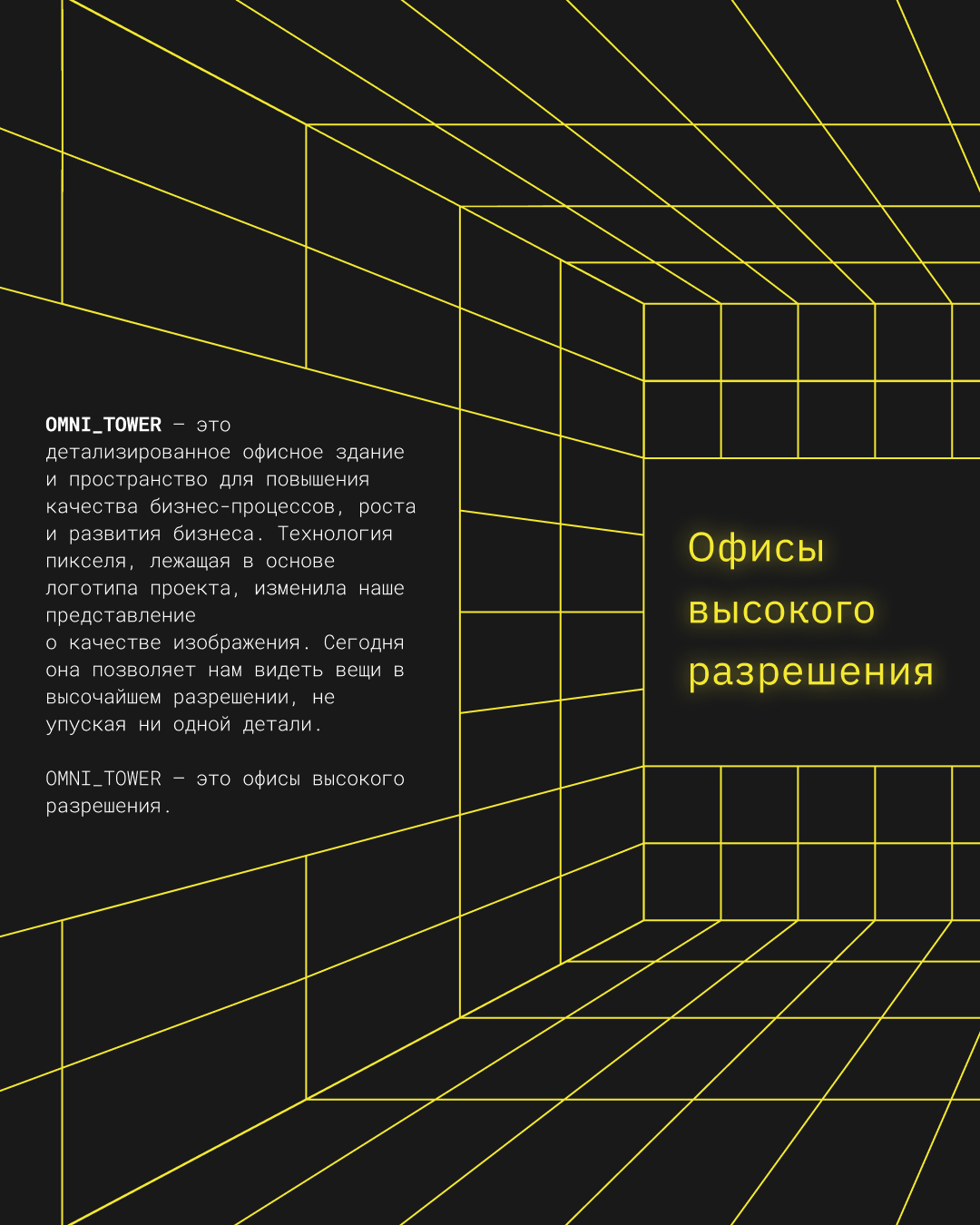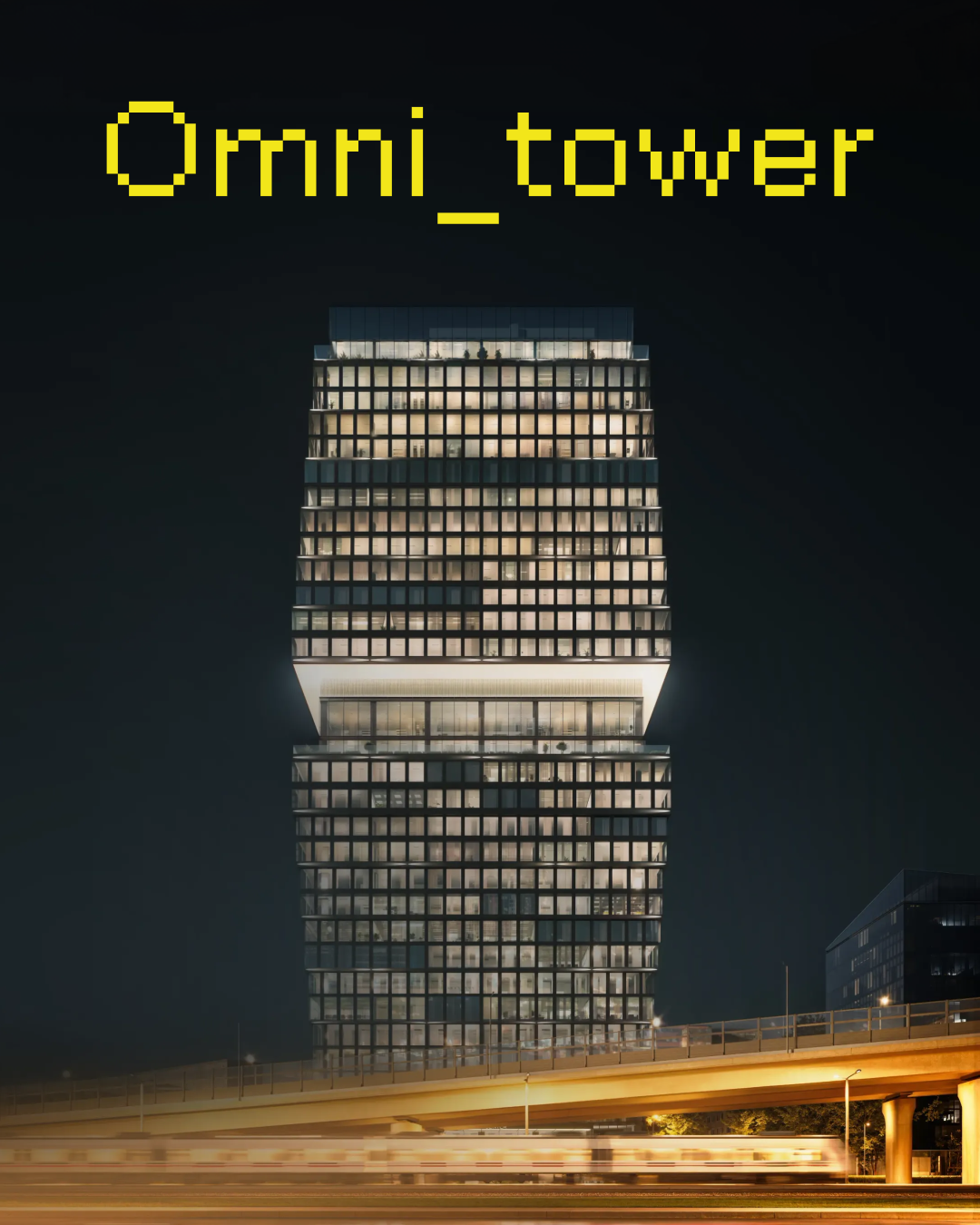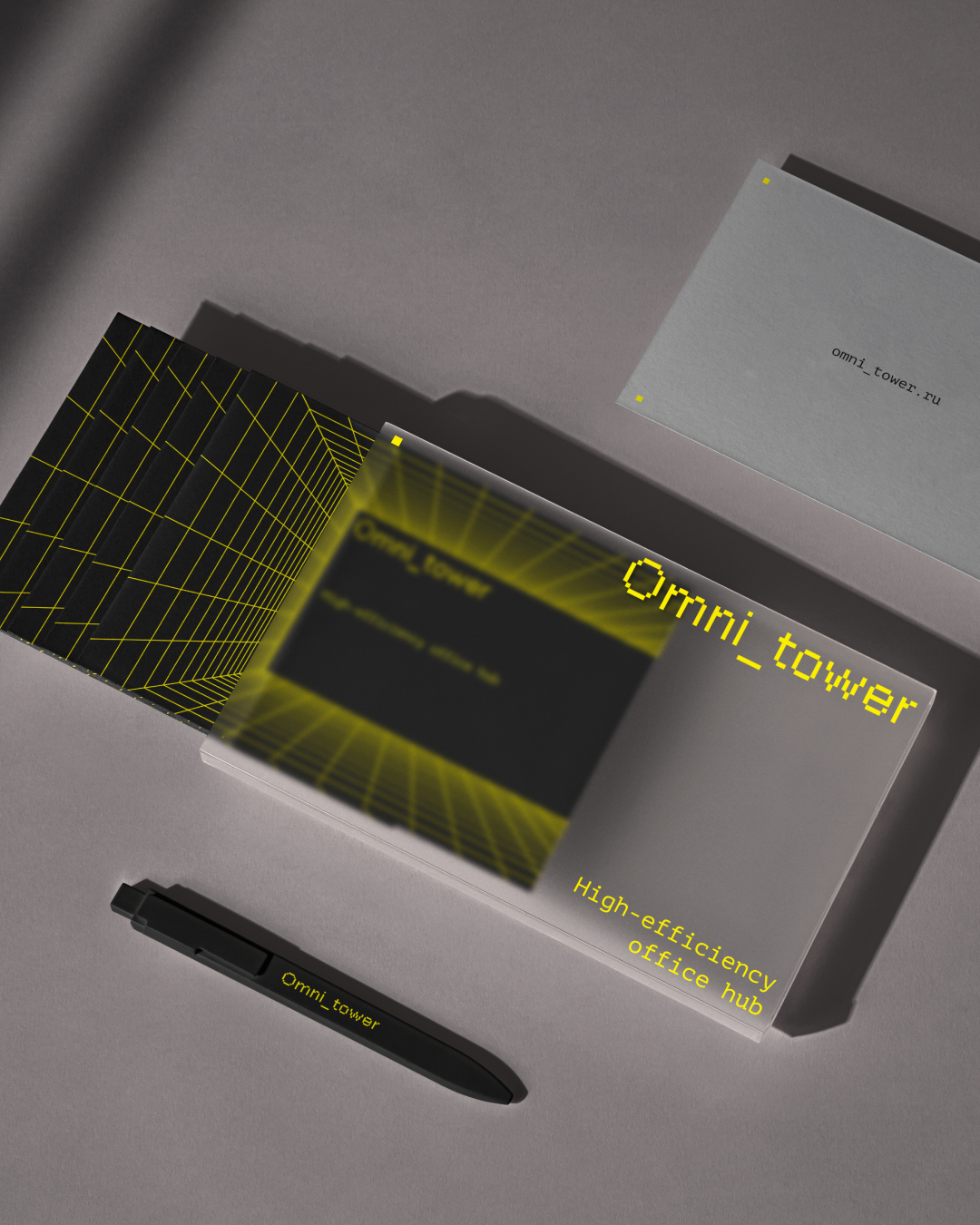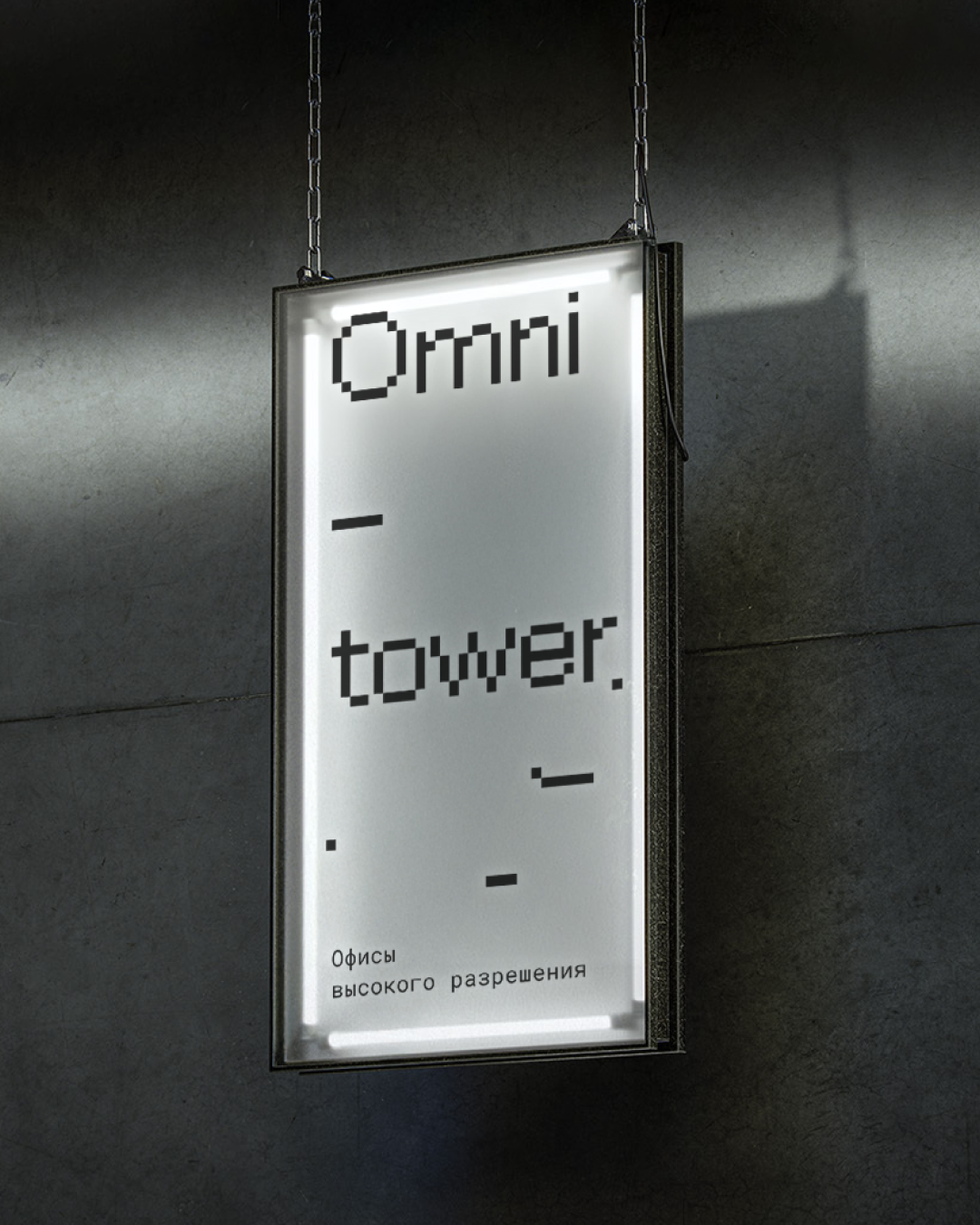
Class A business center Omni_tower
Omni_tower is a flagship Class A business center from developer Sense, unique in its spatial solutions and functional content.
Technology, comfort, and aesthetics create a new quality of business environment here.
10Omni_tower branding is a blend of hi-tech and retro-futurism.
It is inspired by the project's visual and aesthetic environment, where everyday life becomes a space for ideas. The glowing pixel in the identity is a metaphor for Omni_tower as a key element on the map of the digital world. It forms the basis of the logo used with the "High-efficiency office hub" descriptor. Yellow in the color palette serves as an accent of digital luminescence, while gray and black create a calm, technological background, emphasizing the project's status. The typography complements this image: monospaced and pixelated fonts are reminiscent of early computer systems, but presented in a modern, concise interpretation.